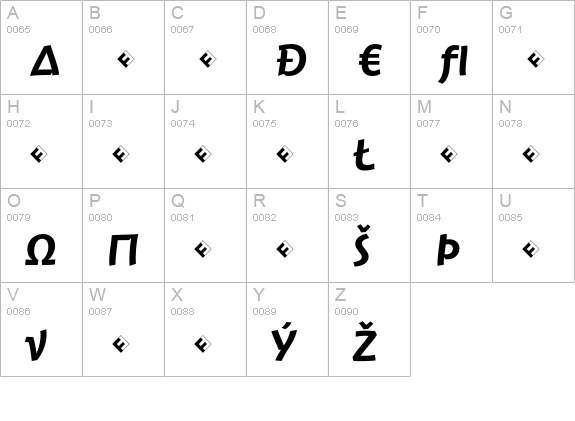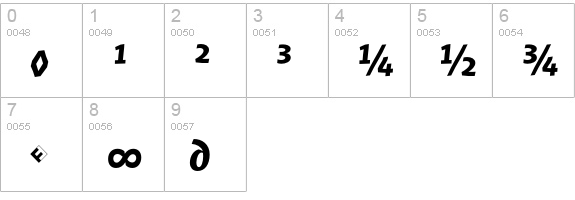
Introducing JambonoTF-MediumExpert, a captivating font that combines elegance and versatility to elevate any design project. This striking typeface exudes a sense of confidence and sophistication, making it the perfect choice for those seeking to make a bold statement. JambonoTF-MediumExpert boasts a unique blend of sleek lines and subtle curves, resulting in a harmonious balance that captures the eye. Its medium weight adds just the right amount of visual impact, making it suitable for a wide range of applications, from headlines to body text. One of the most appealing aspects of JambonoTF-MediumExpert is its remarkable versatility. It effortlessly adapts to various design styles, whether it be modern and minimalistic or classic and timeless. This font is a true chameleon, effortlessly complementing any visual concept. What makes JambonoTF-MediumExpert even more appealing is its accessibility. It is freely available to download at FontsMarket.com, allowing designers and typographers alike to effortlessly incorporate this stunning font into their projects. This means that you can add a touch of elegance and professionalism to your work without breaking the bank. Whether you're designing a website, creating a logo, or crafting a print advertisement, JambonoTF-MediumExpert is the ideal font to add that extra touch of sophistication and refinement. Its attention-grabbing presence is sure to leave a lasting impression on your audience. Don't miss the opportunity to enhance your designs with JambonoTF-MediumExpert. Download this remarkable font today, and experience the seamless fusion of style and substance that it brings to your projects.